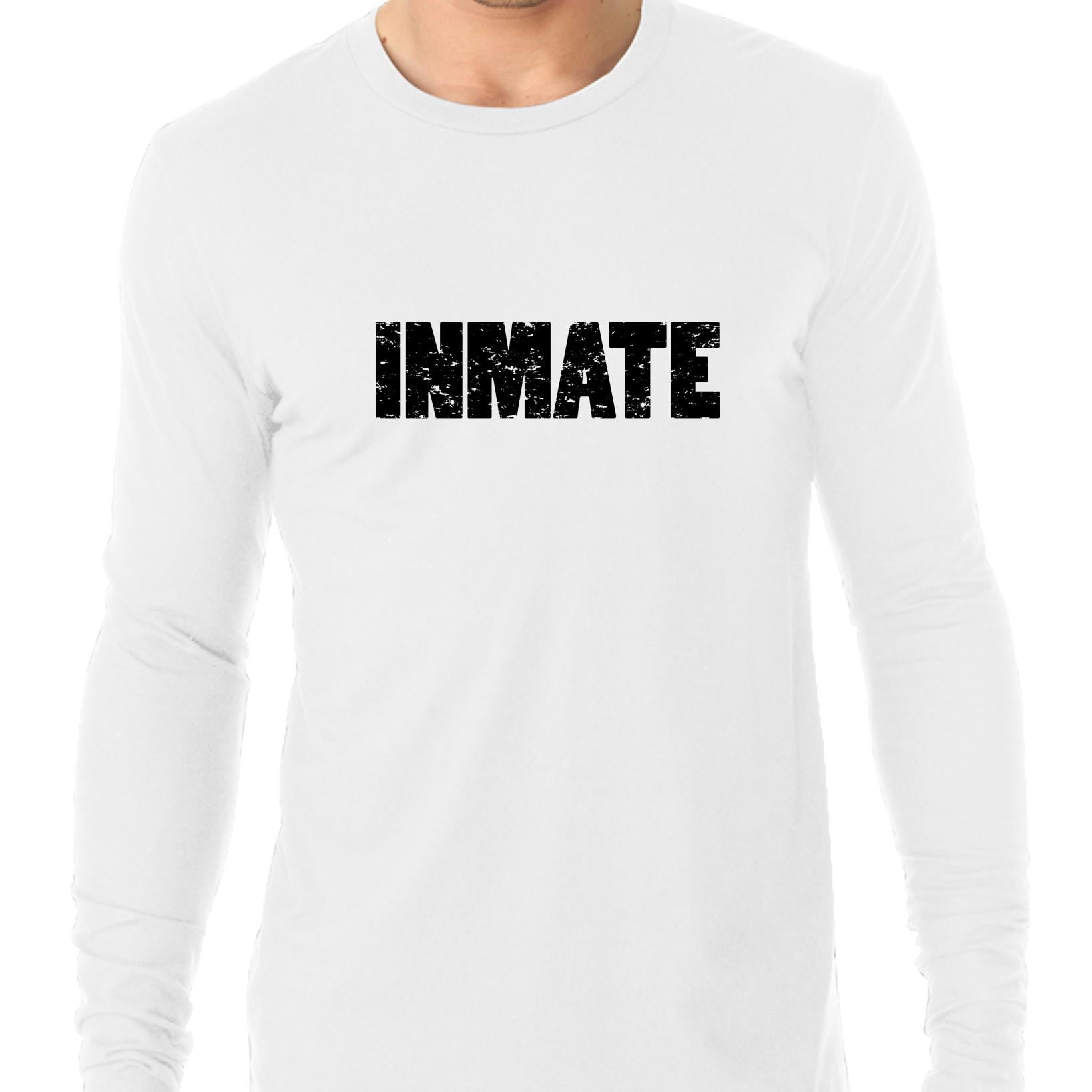
Prison Inmate Font . Click to find the best 4 free fonts in the prison style. Web octin prison is a tough headliner font with 7 weights and 327 characters.
Web find prison fonts for your creative projects at myfonts, a leading online font marketplace. 36,026 downloads (1 yesterday) 100% free. Web with weights ranging from light to black, octin prison is a font that can be used for a variety of design purposes. 33,872 downloads (2 yesterday) 1 comment free for personal use.
Prison Inmate Font - Web jailbird by andy krahling. Click to find the best 4 free fonts in the prison style. Web looking for prison fonts? Prison walls by cumberland fontworks. Browse by categories, bestsellers, new fonts,.
Prison Inmate Font - Browse by categories, bestsellers, new fonts,. Web find and download 11 free prison fonts for your design projects. Web jailbird by andy krahling. Web download octin prison free, a tough headliner font in 7 weights for jail, sports, school, police, construction or military. Web with weights ranging from light to black, octin prison is a font that can be used.
Prison Inmate Font - Web looking for prison fonts? Web download octin prison free, a tough headliner font in 7 weights for jail, sports, school, police, construction or military. Prison walls by cumberland fontworks. Web find and download 11 free prison fonts for your design projects. Web with weights ranging from light to black, octin prison is a font that can be used for.
Prison Inmate Font - Web find prison fonts for your creative projects at myfonts, a leading online font marketplace. Web find and download 11 free prison fonts for your design projects. Web download octin prison free, a tough headliner font in 7 weights for jail, sports, school, police, construction or military. 36,026 downloads (1 yesterday) 100% free. Every font is free to download!
Prison Inmate Font - Every font is free to download! Web octin prison is a tough headliner font with 7 weights and 327 characters. Web find prison fonts for your creative projects at myfonts, a leading online font marketplace. Web with weights ranging from light to black, octin prison is a font that can be used for a variety of design purposes. Prison fonts.
Prison Inmate Font - Web find prison fonts for your creative projects at myfonts, a leading online font marketplace. Click to find the best 4 free fonts in the prison style. Web looking for prison fonts? 36,026 downloads (1 yesterday) 100% free. Browse by categories, bestsellers, new fonts,.
Prison Inmate Font - Prison fonts are inspired by the style and culture of prisons, such as graffiti,. Web find and download 11 free prison fonts for your design projects. Every font is free to download! Web jailbird by andy krahling. 36,026 downloads (1 yesterday) 100% free.
Prison Inmate Font - Web octin prison is a tough headliner font with 7 weights and 327 characters. 33,872 downloads (2 yesterday) 1 comment free for personal use. Browse by categories, bestsellers, new fonts,. The lighter weights work well for smaller text, providing a clean,. Web find and download 11 free prison fonts for your design projects.
Prison Inmate Font - Web find and download 11 free prison fonts for your design projects. 36,026 downloads (1 yesterday) 100% free. Every font is free to download! 33,872 downloads (2 yesterday) 1 comment free for personal use. Web octin prison is a tough headliner font with 7 weights and 327 characters.
Prison Inmate Font - Prison fonts are inspired by the style and culture of prisons, such as graffiti,. 33,872 downloads (2 yesterday) 1 comment free for personal use. Web looking for prison fonts? Click to find the best 4 free fonts in the prison style. Web jailbird by andy krahling.
Prison Inmate Font - Click to find the best 4 free fonts in the prison style. Web octin prison is a tough headliner font with 7 weights and 327 characters. Prison walls by cumberland fontworks. Web with weights ranging from light to black, octin prison is a font that can be used for a variety of design purposes. Web looking for prison fonts?
Prison Inmate Font - Web find prison fonts for your creative projects at myfonts, a leading online font marketplace. Browse by categories, bestsellers, new fonts,. Prison fonts are inspired by the style and culture of prisons, such as graffiti,. Every font is free to download! Web with weights ranging from light to black, octin prison is a font that can be used for a.
Prison Inmate Font - Web with weights ranging from light to black, octin prison is a font that can be used for a variety of design purposes. Web find prison fonts for your creative projects at myfonts, a leading online font marketplace. Browse by categories, bestsellers, new fonts,. Click to find the best 4 free fonts in the prison style. Prison fonts are inspired.